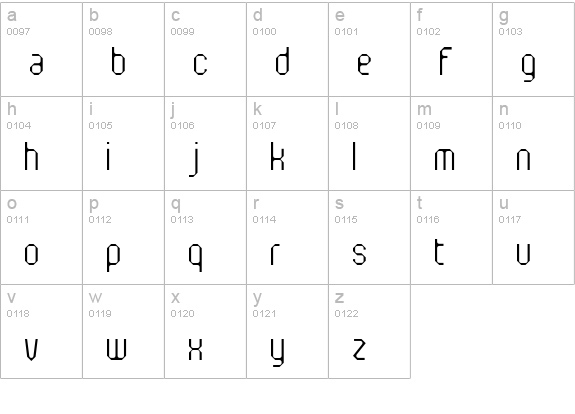
Flotsam Motorway font is a modern and stylish typeface that will add a touch of sophistication to any design project. With its sleek lines and unique curves, this font is perfect for branding, logos, headlines, and more. The clean and contemporary look of Flotsam Motorway makes it versatile and suitable for a wide range of applications. Best of all, Flotsam Motorway is available for free download at FontsMarket.com. Whether you're a designer looking to add a fresh font to your collection or a business owner in need of a striking typeface for your marketing materials, Flotsam Motorway is sure to impress. Download it now and elevate your designs with this eye-catching font.